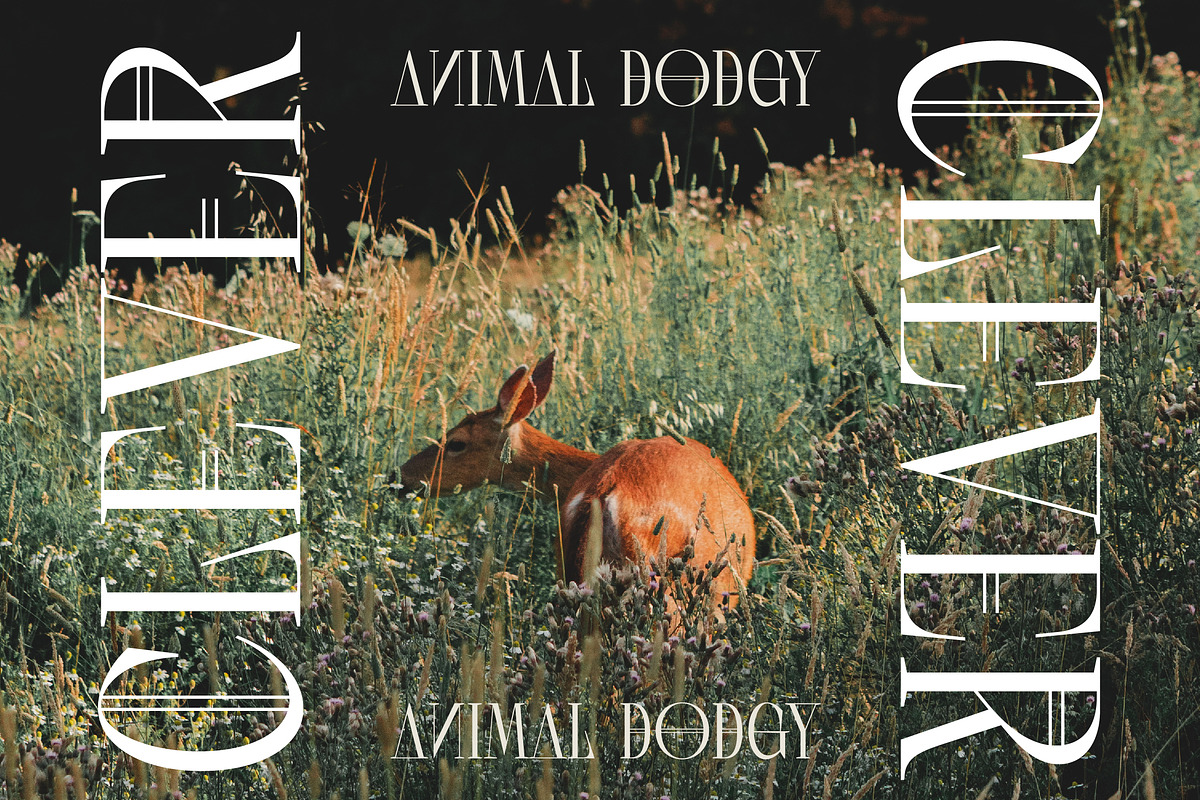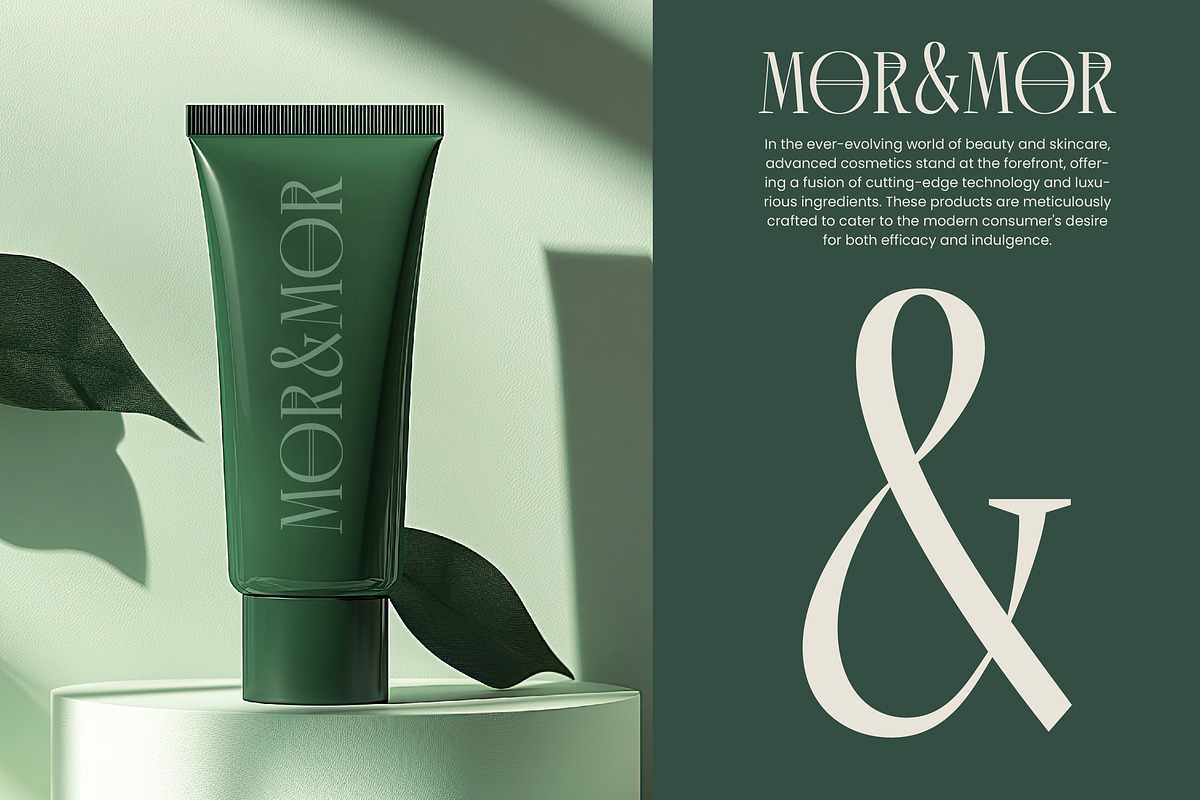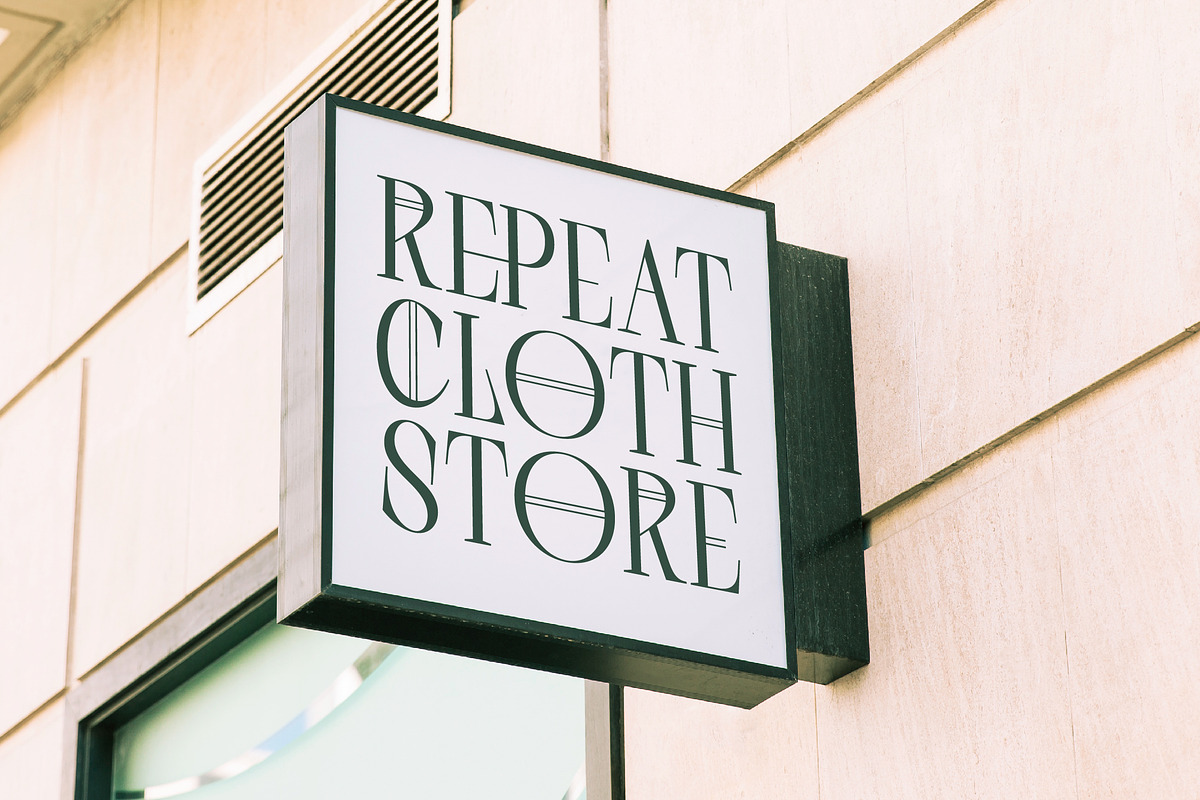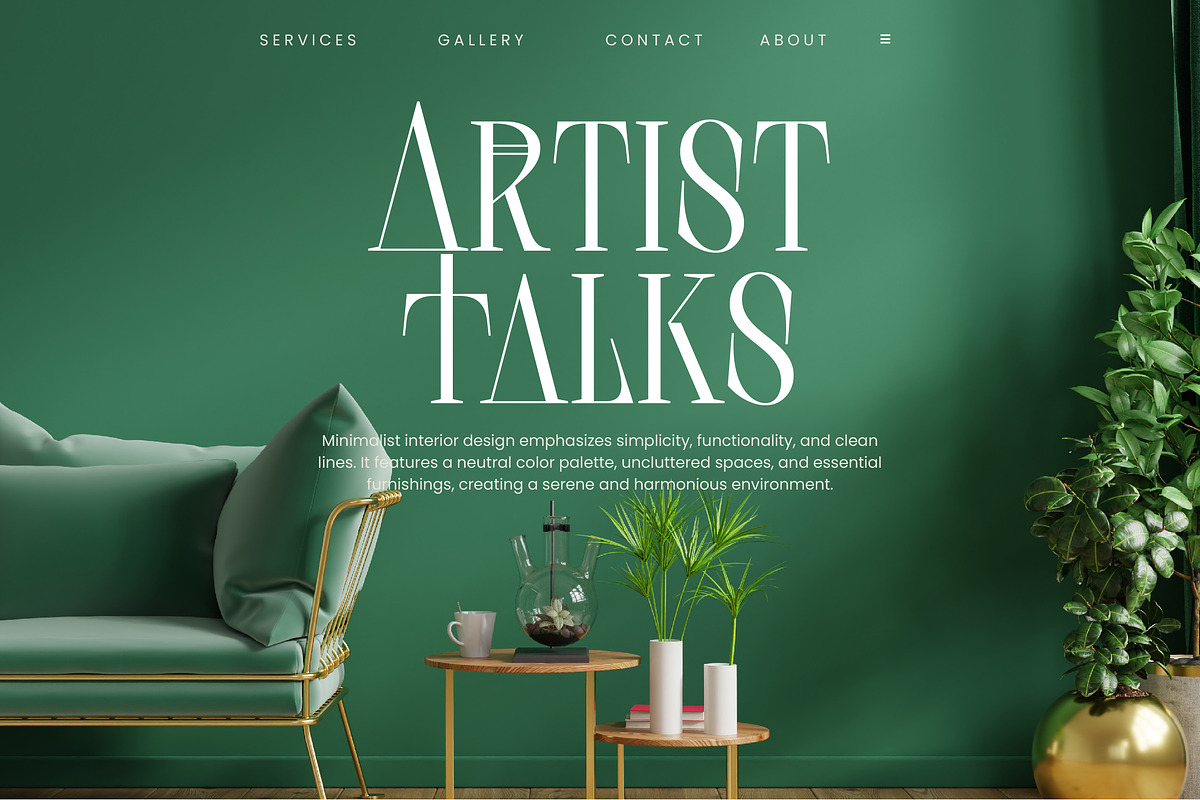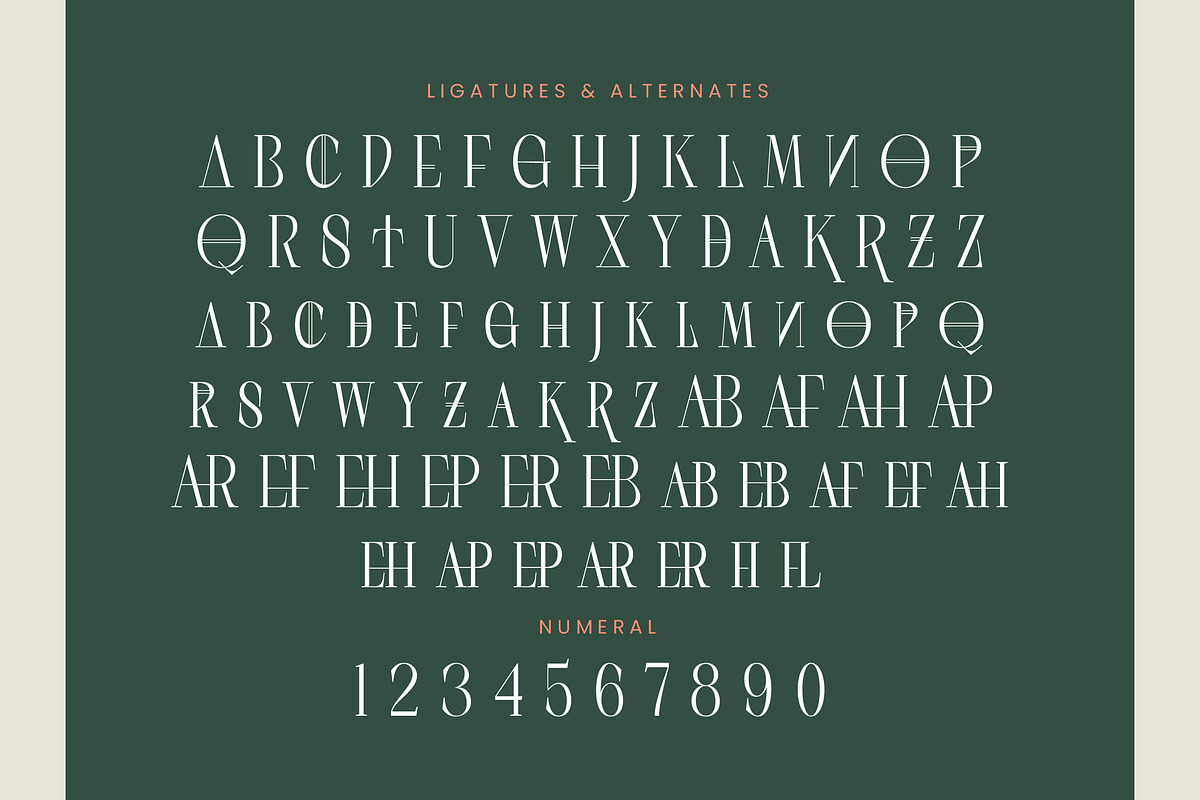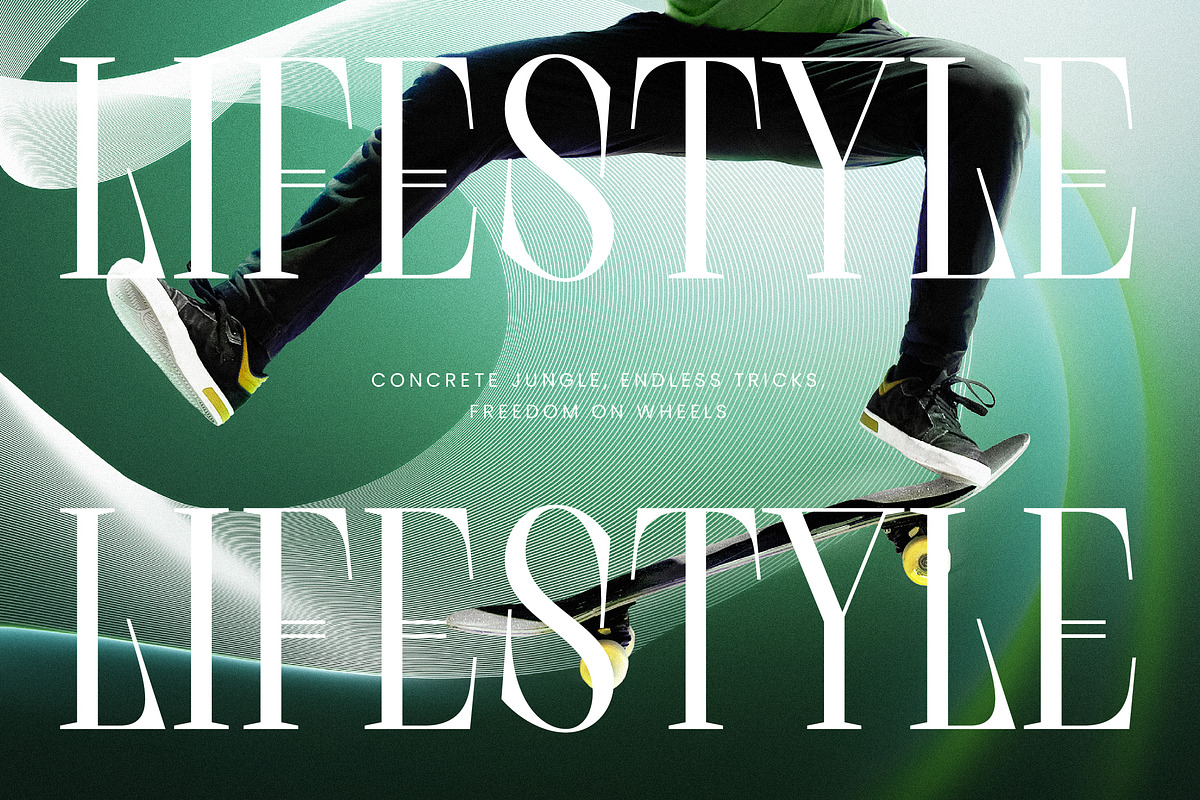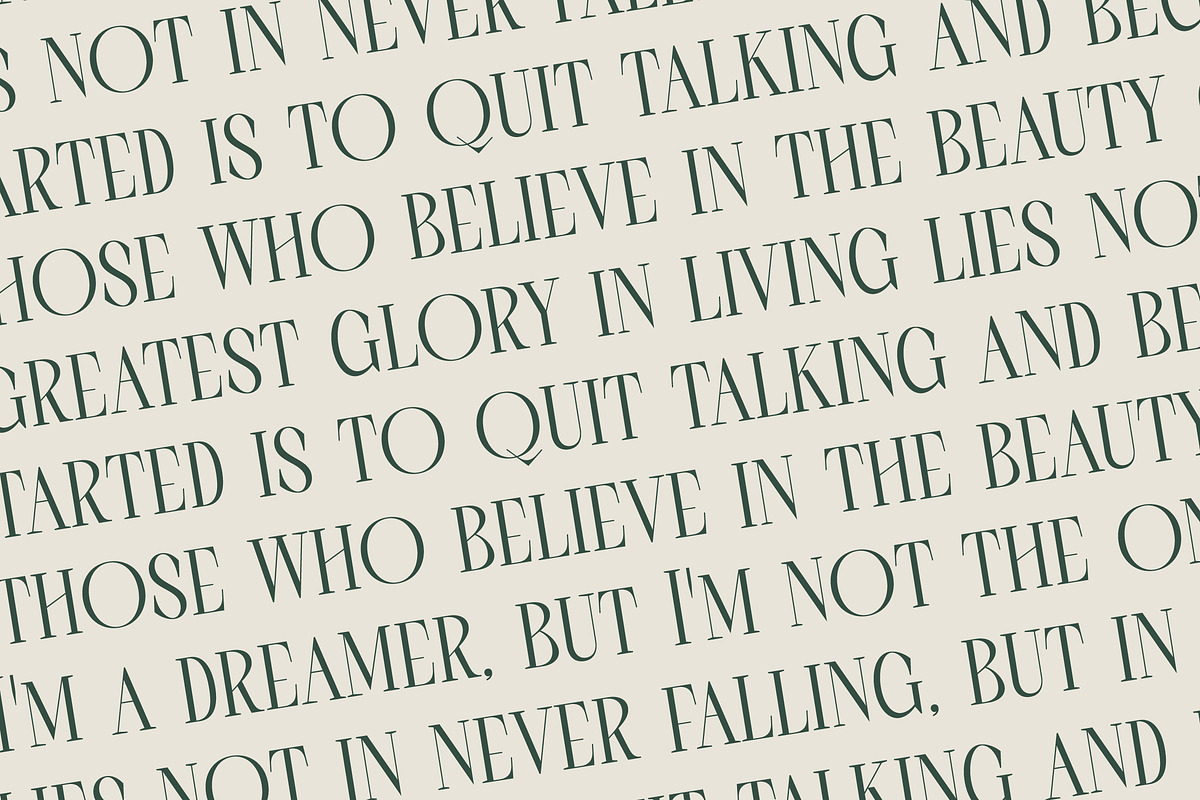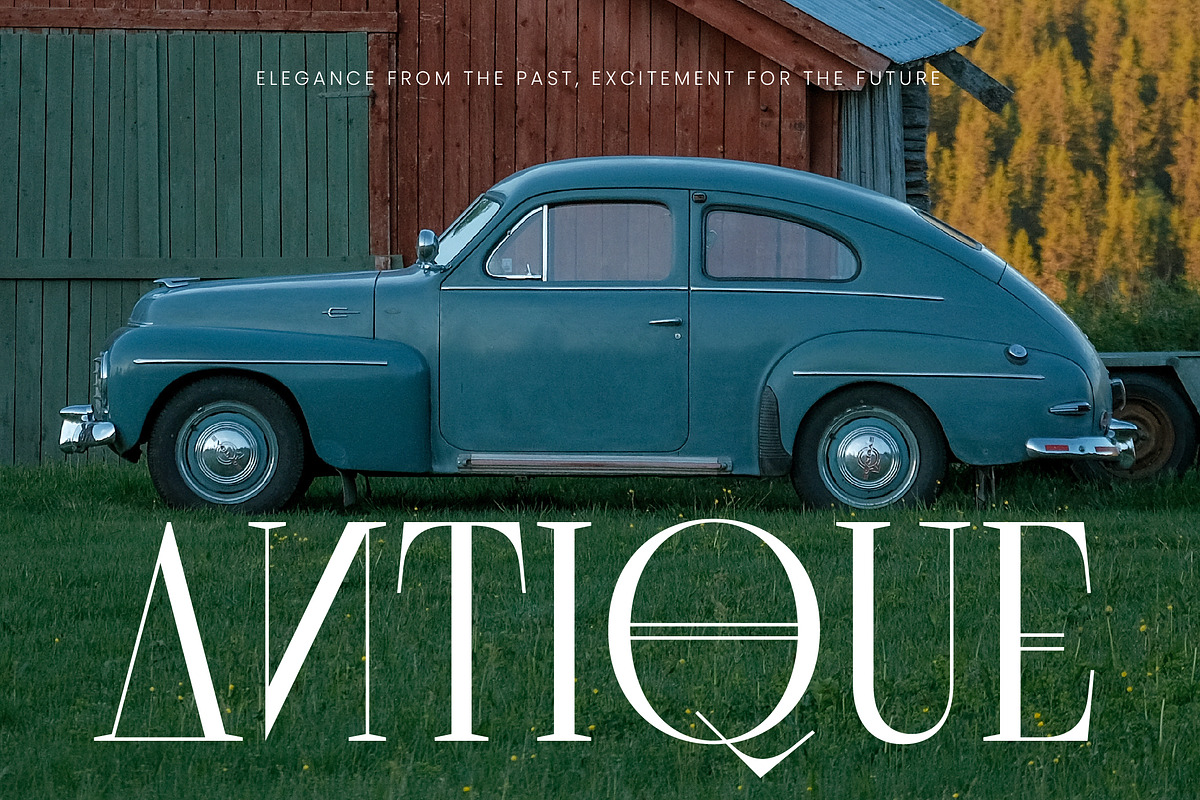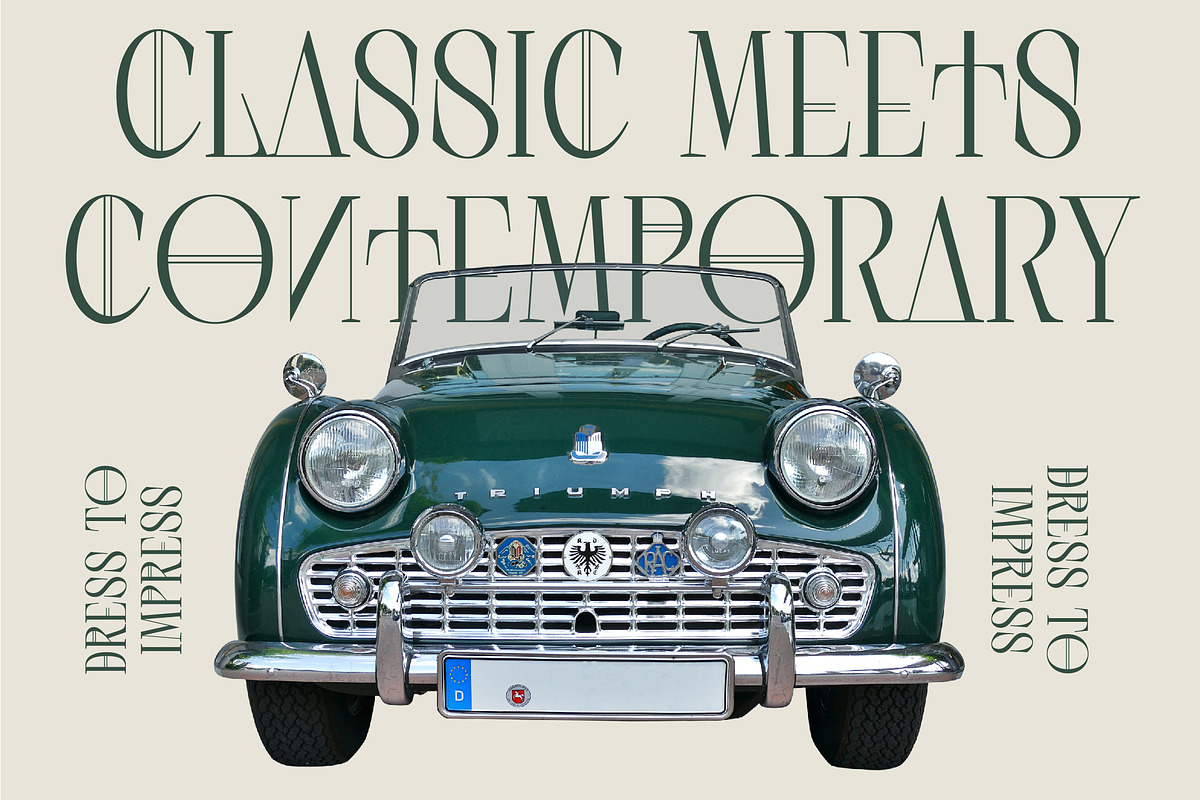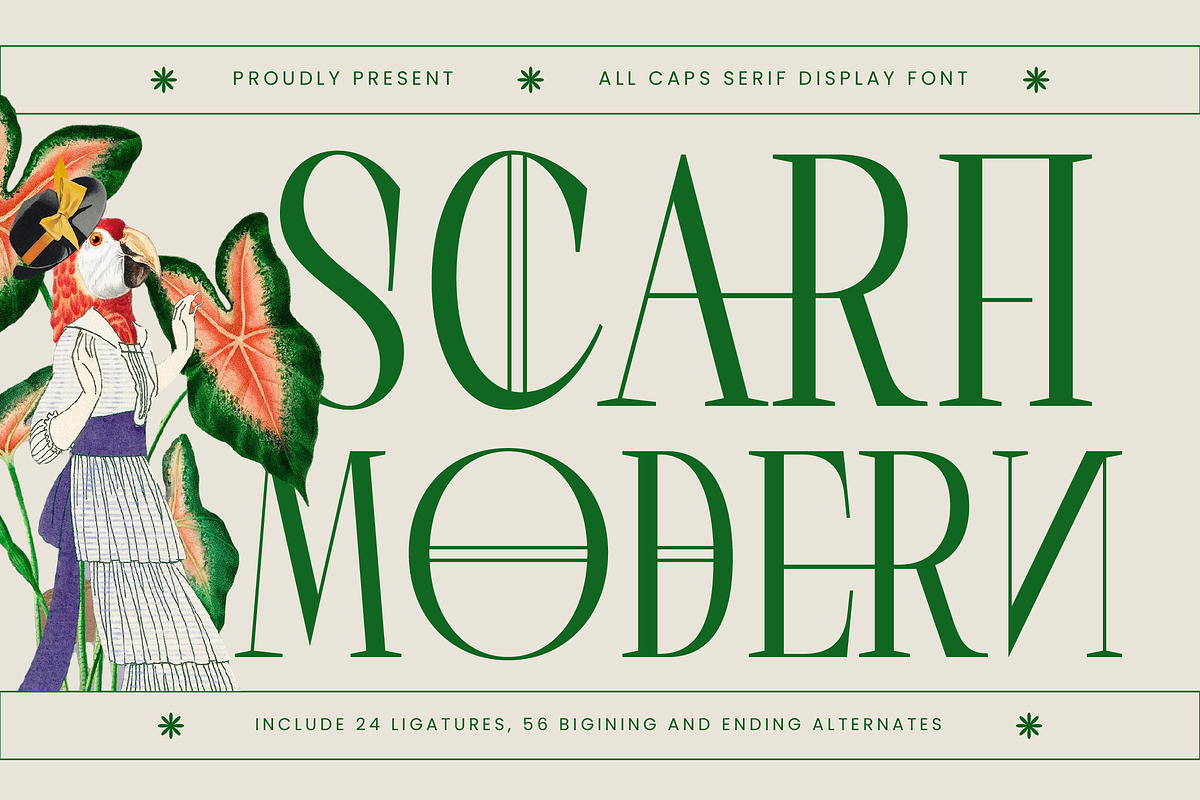
Scarfi Modern All Caps Serif
Elevate your creative vision with the commanding elegance of Scarfi Modern All Caps, a typeface meticulously crafted for those who define the intersection of classic beauty and contemporary edge. This font transforms every character into a work of art, ensuring your headlines speak with unparalleled sophistication.
Inspired by the botanical richness of vintage illustrations and the high-fashion aesthetics of European runways, Scarfi draws its soul from an era of timeless luxury. It captures a garden-party atmosphere where tradition meets a bold, forward-thinking visual language.
This modern serif display is a tour de force in luxury typography, utilizing a sharp high-contrast serif structure to achieve a lasting branding impact. As a premier editorial font, it offers the perfect balance of readability and artistic expression for high-profile visual storytelling.
Perfectly aligned with the global modern serif trend, this typeface addresses the growing need for editorial display fonts that break away from the mundane. It stands as a beacon of character-driven typography, allowing designers to inject personality into every layout.
From the initial concept of a logo design to the final execution of global branding, this typeface excels in editorial spreads and high-end packaging. Its versatile nature makes it a stunning choice for romantic wedding suites and avant-garde fashion branding.
This comprehensive package includes 24 expressive ligatures and 56 unique alternates to help you customize every word. Additionally, it offers full multilingual support and a wide range of international characters, including swashes and decorative elements to ensure global versatility.
- Ligature 24 Alternate 56